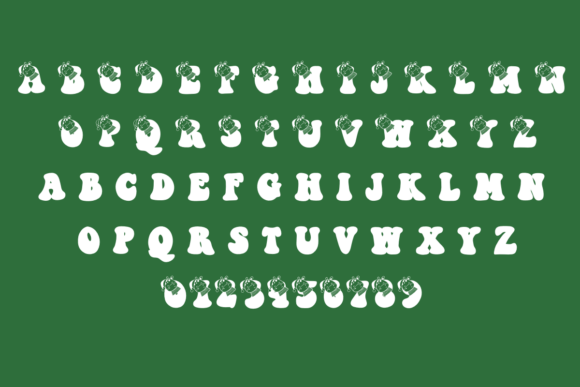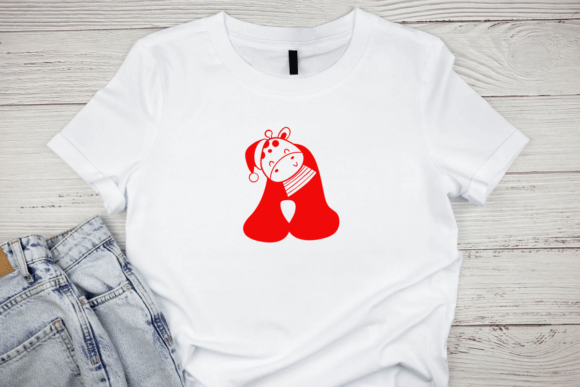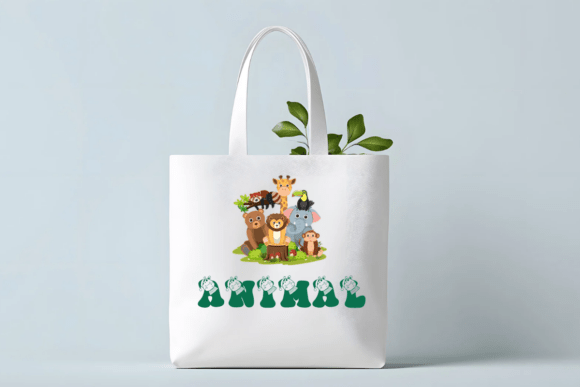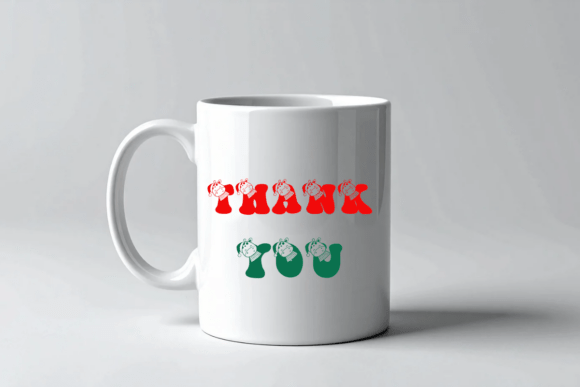
Deck the Halls with a Touch of Whimsy
As the holiday season approaches, I find myself rummaging through old Christmas decorations, nostalgic memories flooding my mind. There’s something magical about the twinkling lights, the scent of pine, and the sound of carolers that gets me in the spirit. But what really sets the tone for a festive atmosphere is the fonts we use to express our holiday cheer. That’s where the Animal Christmas Font comes in – a delightful, decorative font that adds a touch of whimsy to any project.
This charming font is perfect for taking notes, writing a diary, or creating greeting cards, but its versatility knows no bounds. Designers, rejoice! The Animal Christmas Font is a valuable addition to any toolkit, allowing you to bring a dash of holiday magic to banners, social media posts, mugs, cards, shirts, stationery, and more.
Animal Christmas Font Key Features
- Font Family: Animal Christmas Font is a unique, hand-drawn font family designed specifically for the holiday season.
- Character Set: Includes a wide range of characters, including uppercase and lowercase letters, numbers, punctuation marks, and special characters.
- Unique Characteristics: Features a playful, whimsical design with a mix of animal and holiday elements, making it perfect for Christmas and winter-themed designs.
Designer Review: Animal Christmas Font
The Animal Christmas Font is a cute and playful addition to any holiday design project. I love the whimsical illustrations of animals in festive attire, which adds a fun and lighthearted touch to any design. ✨ The font is also highly customizable, with options to adjust the color, size, and spacing of the characters.
- ✨ The illustrations are adorable and well-designed, making them perfect for kids’ birthday cards, holiday invitations, or social media graphics.
- ✨ The font is highly customizable, allowing designers to tailor the look to their specific project needs.
- ✨ The file includes a wide range of characters, including uppercase and lowercase letters, numbers, and punctuation.
However, there are a few limitations to consider: ⚠️ The font is quite large in file size, which may cause issues with slower computers or older software. Additionally, the illustrations are not vector-based, which means they may not scale well to larger sizes.
Overall, the Animal Christmas Font is a fun and festive addition to any holiday design project. While it has some limitations, the adorable illustrations and high level of customization make it a great choice for designers looking to add a playful touch to their work.
For best results, use Animal Christmas Font in conjunction with festive graphics and colors to create a cohesive holiday design. Experiment with different font sizes and styles to add visual interest to your design.
Animal Christmas Font is ideal for creating holiday-themed designs such as:
– Christmas cards and invitations
– Holiday menus and posters
– Social media graphics and ads
– Party decorations and flyers
Pacifico is a elegant and modern script font that’s ideal for creating a relaxed and beachy vibe. While it’s not as playful as Animal Christmas Font, Pacifico can be used to add a touch of sophistication to holiday designs, such as invitations, menus, and packaging. Pacifico is more versatile and can be used throughout the year, not just during the holidays.